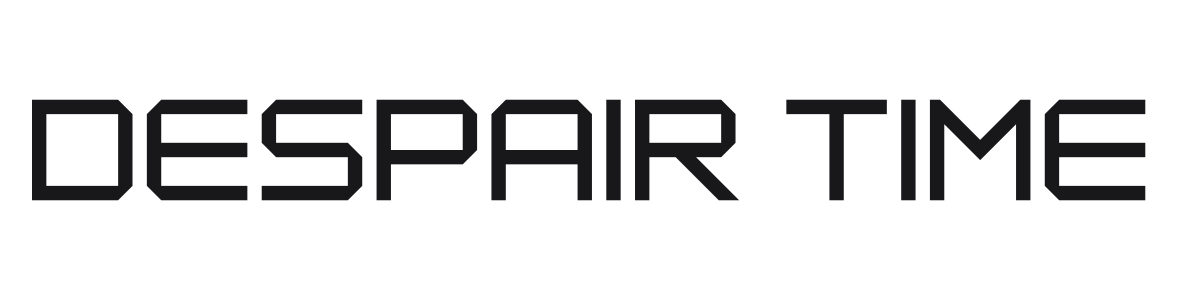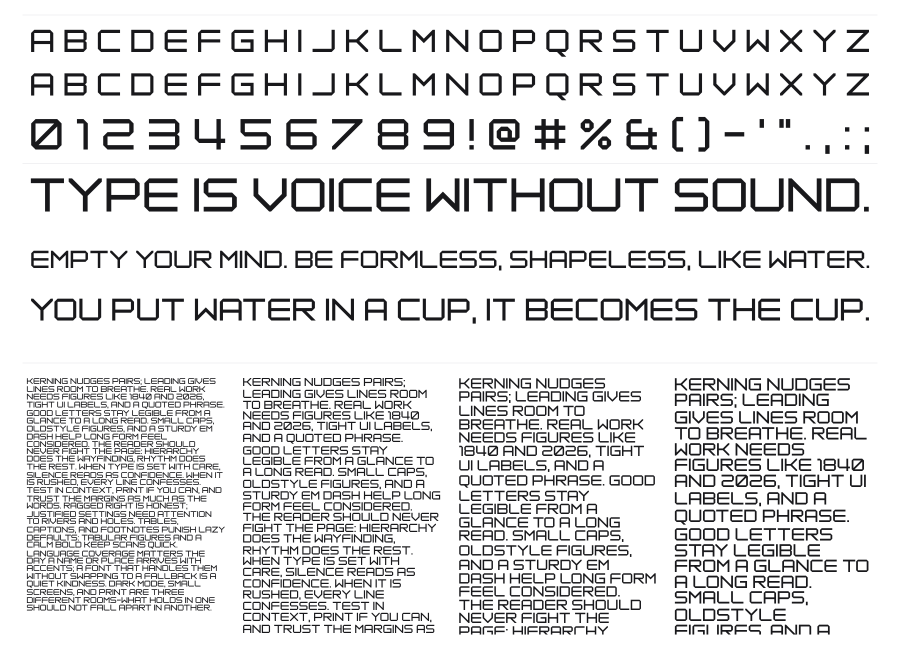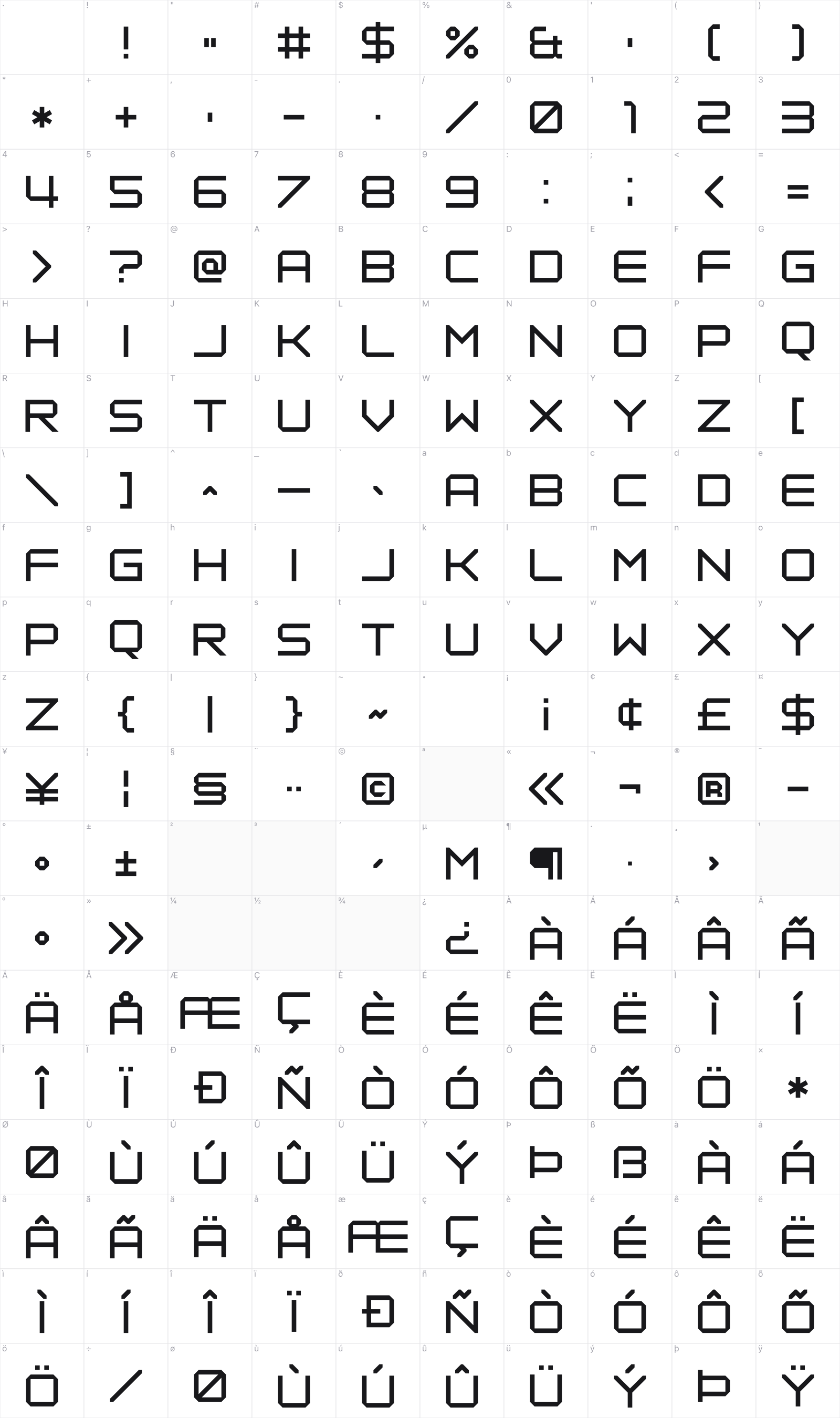
Despair Time
Despair Time is a wide geometric sans with squared construction, flat terminals, and an uncompromising monoweight stroke. Every character is built from rectangular components with near-zero softness, giving the typeface a cold, mechanical presence that reads as deliberately tense. It fits naturally in sci-fi, dystopian, and gaming contexts where that edge is the point.